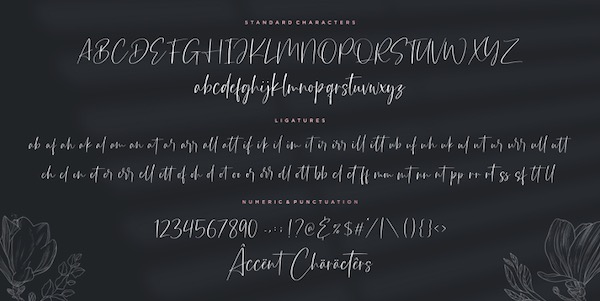
Introducing Belladonna! This is an elegant stylish hand-drawn script font. Carefully designed by Andre Bima Falah Rabbani to display flawless and natural writing. Belladonna Font is also supported by the addition of more than 60 unique ligatures to display an authentic and elegant quality.
With this font, you can beautify your various projects. Such as stylish branding & logos, packaging, handwritten quotes, merchandising, advertising, etc.
Belladonna Handwritten Font
Designer Name: Andre Bima Falah Rabbani
Publisher: Atharuah Studios